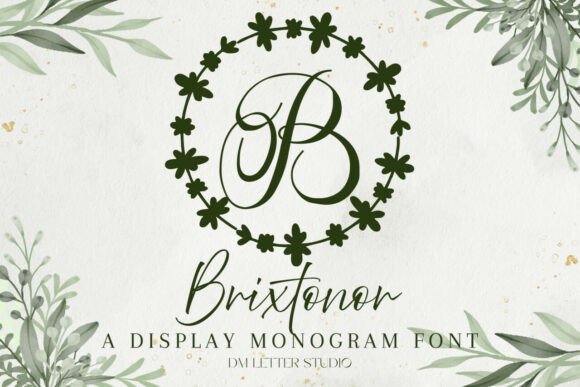
Meet Brixtonor, the Monogram Font
In the world of typography, a well-designed monogram font can elevate your brand’s visual identity to new heights. Introducing Brixtonor, a stunning monogram font that transforms simple initials into bold, boutique-ready emblems. With its smooth strokes and confident feel, Brixtonor is perfect for designers and crafters looking to add a touch of elegance to their projects.
The Characteristics of Brixtonor
Brixtonor’s design is centered around creating a sense of balance and harmony. The font features open counters, which not only make tiny tags readable but also keep thumbnails crisp. This attention to detail ensures that your designs look polished and refined, whether you’re working on wedding suites, boutique logos, keepsake gifts, foil seals, or premium packaging.
One of the standout features of Brixtonor is its versatility. This monogram font pairs beautifully with refined serifs and quiet humanist sans fonts, allowing you to create layouts that are both elegant and sophisticated. The font’s smooth strokes and clear spacing make it easy to combine with other typography, ensuring that your designs look cohesive and professional.
Where Brixtonor Shines
Brixtonor truly shines when used to create stunning monograms. Whether you’re designing logos, seals, menus, or place cards, this font makes it easy to set single, double, or triple initials that exude confidence and style. The font’s balanced geometry also makes it easy to frame your monograms with laurel rings, ovals, rope circles, or fine rules, adding an extra touch of elegance to your designs.
Effortless Design with Brixtonor
One of the biggest advantages of Brixtonor is its ability to help you create consistent and professional-looking designs in minutes. The font’s proportions favor symmetry and clear spacing, making it easy to create centered compositions that look polished and refined. This means that you can quickly and easily create stunning designs that are perfect for a wide range of applications, from invitations and signage to boxes and tags.
Practical Applications of Brixtonor
So, how can you use Brixtonor in your designs? Here are just a few ideas to get you started:
- Wedding Suites: Use Brixtonor to create stunning monograms for wedding invitations, place cards, and other stationery.
- Boutique Logos: Create a bold and eye-catching logo for your boutique or small business using Brixtonor.
- Keepse Gift: Add a touch of elegance to keepsake gifts, such as jewelry boxes or personalized ornaments.
- Foil Seals: Use Brixtonor to create beautiful foil seals for letters, gifts, or other items.
- Premium Packaging: Elevate your brand’s packaging with stunning monograms created using Brixtonor.
Scalability and Consistency
Another advantage of Brixtonor is its scalability. The font looks great whether it’s used for small tags or large entry displays, making it perfect for a wide range of applications. Additionally, the font’s clear spacing and balanced geometry ensure that your designs look consistent across different platforms and materials, from invitations and signage to boxes and tags.
In conclusion, Brixtonor is a stunning monogram font that is perfect for designers and crafters looking to add a touch of elegance to their projects. With its smooth strokes, confident feel, and versatile design, Brixtonor is sure to become a go-to font in your collection. Whether you’re working on wedding suites, boutique logos, keepsake gifts, or premium packaging, Brixtonor is the perfect choice for creating bold, boutique-ready emblems that exude confidence and style.